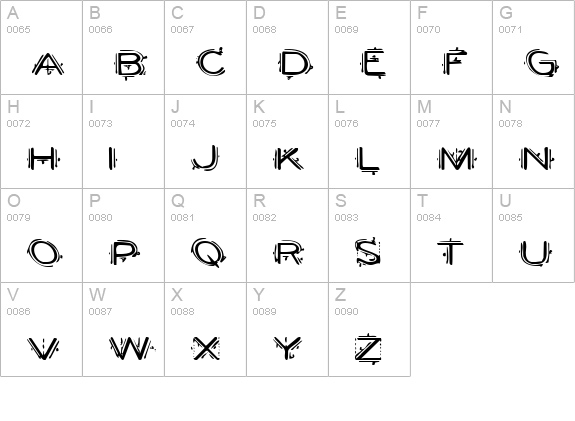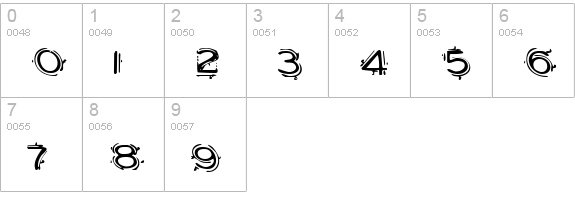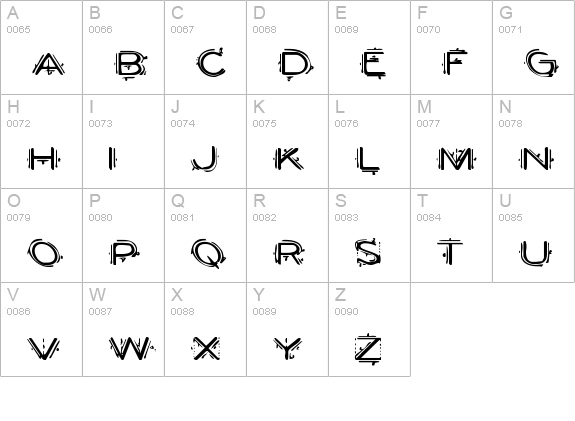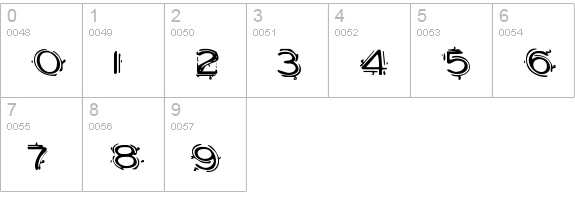
Berserker Expanded is a distinctive, extended-width variant in the Berserker typeface family \xE2\x80\x94 well suited to design and typography projects.
Berserker Expanded font is a bold and fierce typeface that exudes power and intensity. With its strong, angular shapes and sharp edges, this font is perfect for making a bold statement in your designs. The expanded version adds even more impact, making it ideal for headlines, posters, and other display purposes. What's even better is that Berserker Expanded font is available for free download at FontsMarket.com. So unleash your creativity with this dynamic and striking typeface without any cost. Whether you're working on a branding project, poster design, or any other creative endeavor, Berserker Expanded font will help you make a lasting impression. Download it now and make your designs stand out from the crowd.